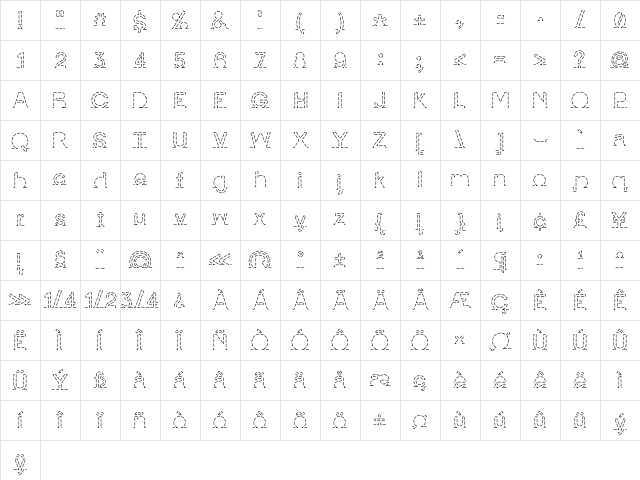
I am online with u Personal Use Only Dashed Free Font
I am online with u Personal Use Only Dashed
Style: Dashed
Foundry: Pisto Casero
Designer: Gilberto Moya Perona
Design Context for I am online with u Personal Use Only
I am online with u Personal Use Only is a composed and adaptable typeface that performs quietly and consistently across a wide range of design contexts.
Who designed the I am online with u Personal Use Only Dashed font?
This font was published by Pisto Casero. Check the technical specs section for copyright and designer details.